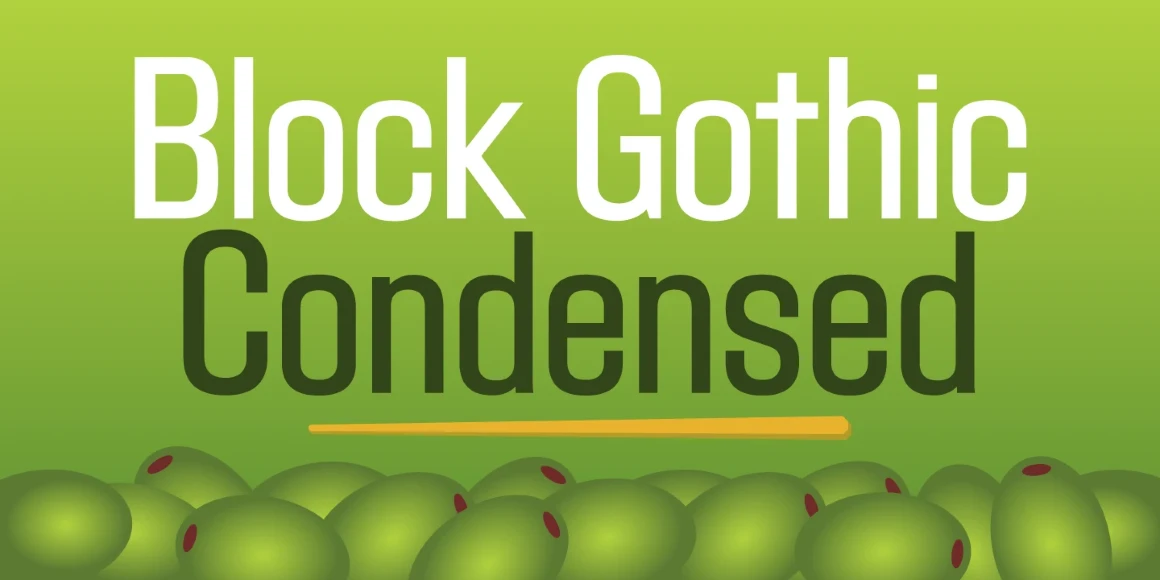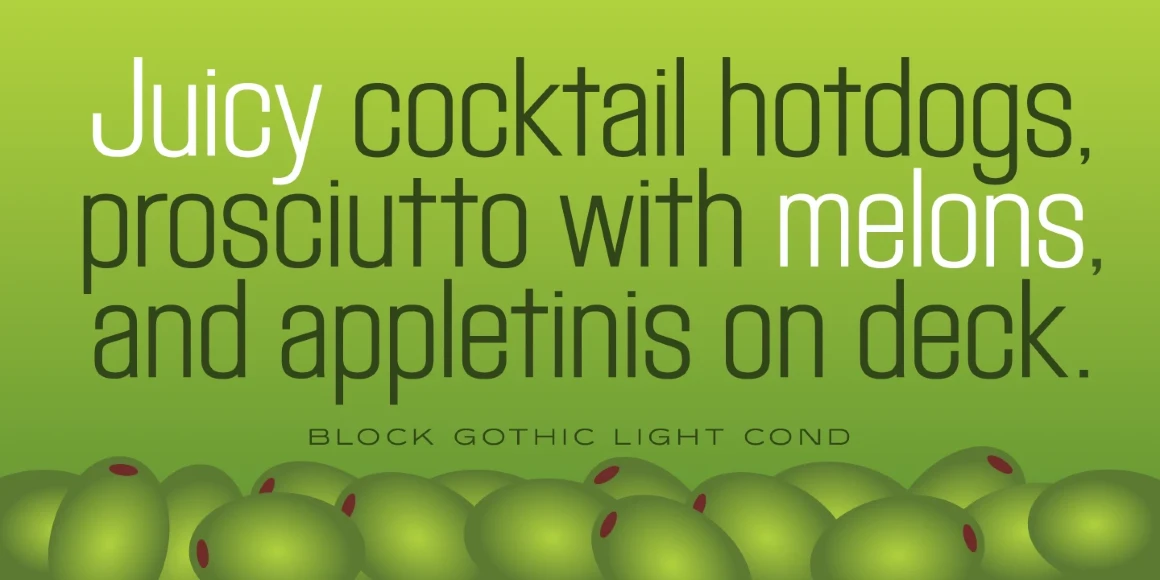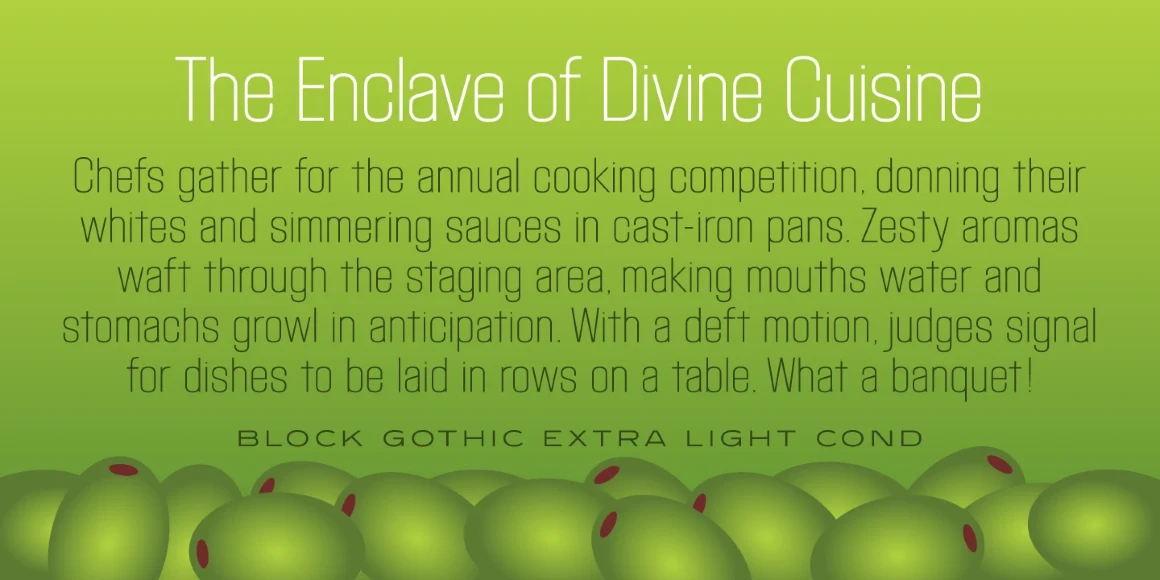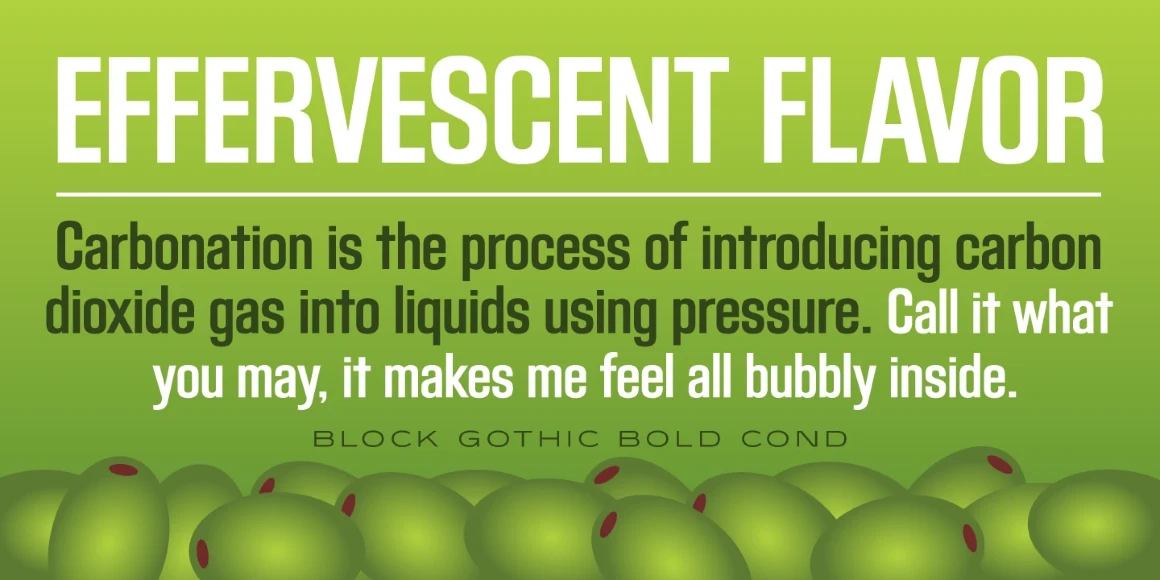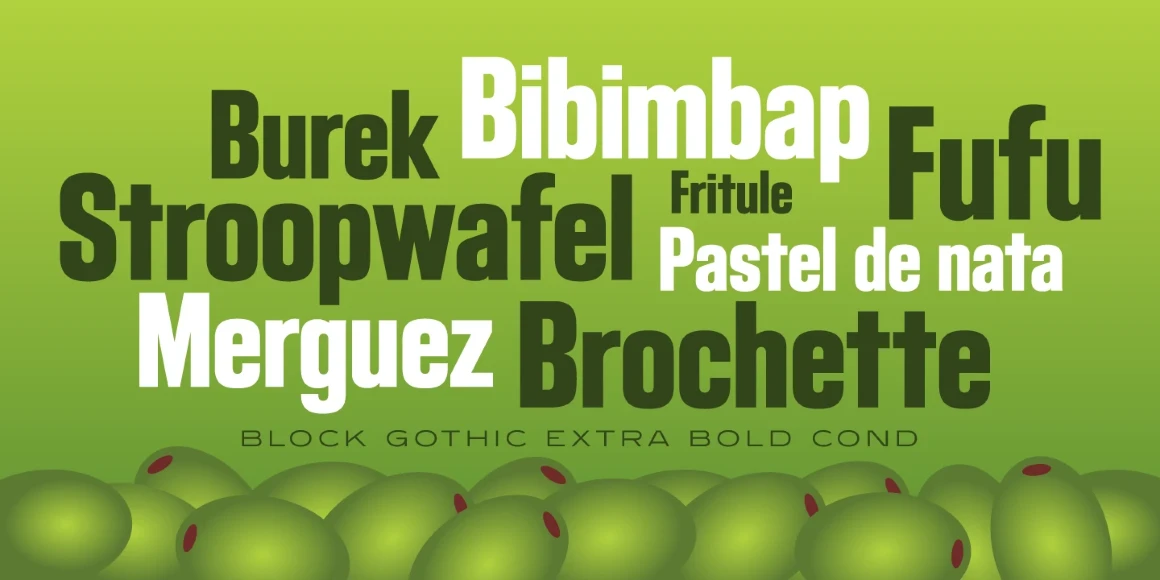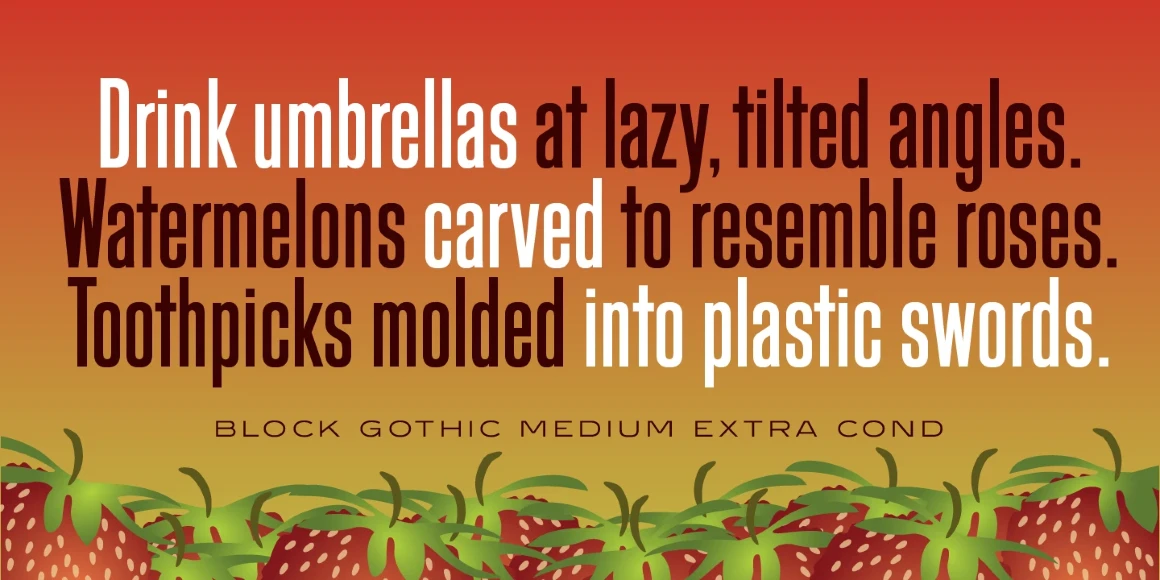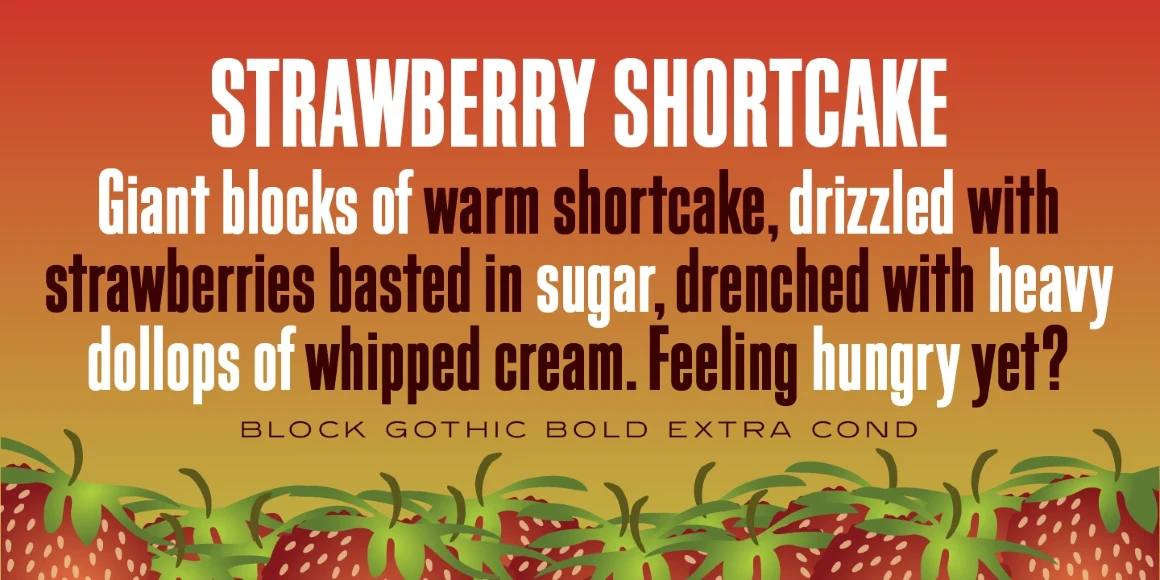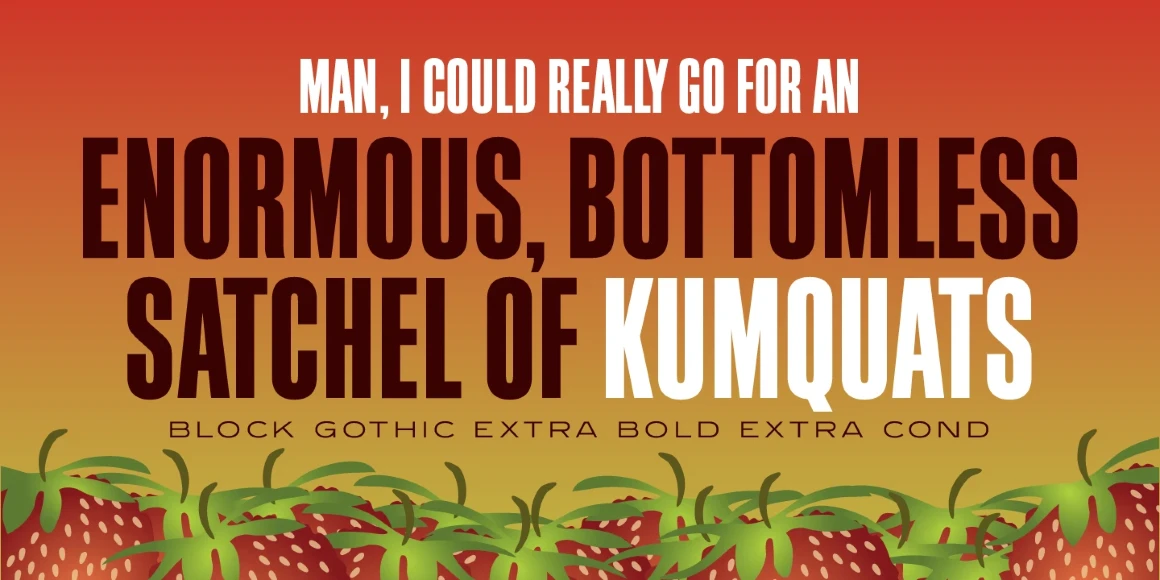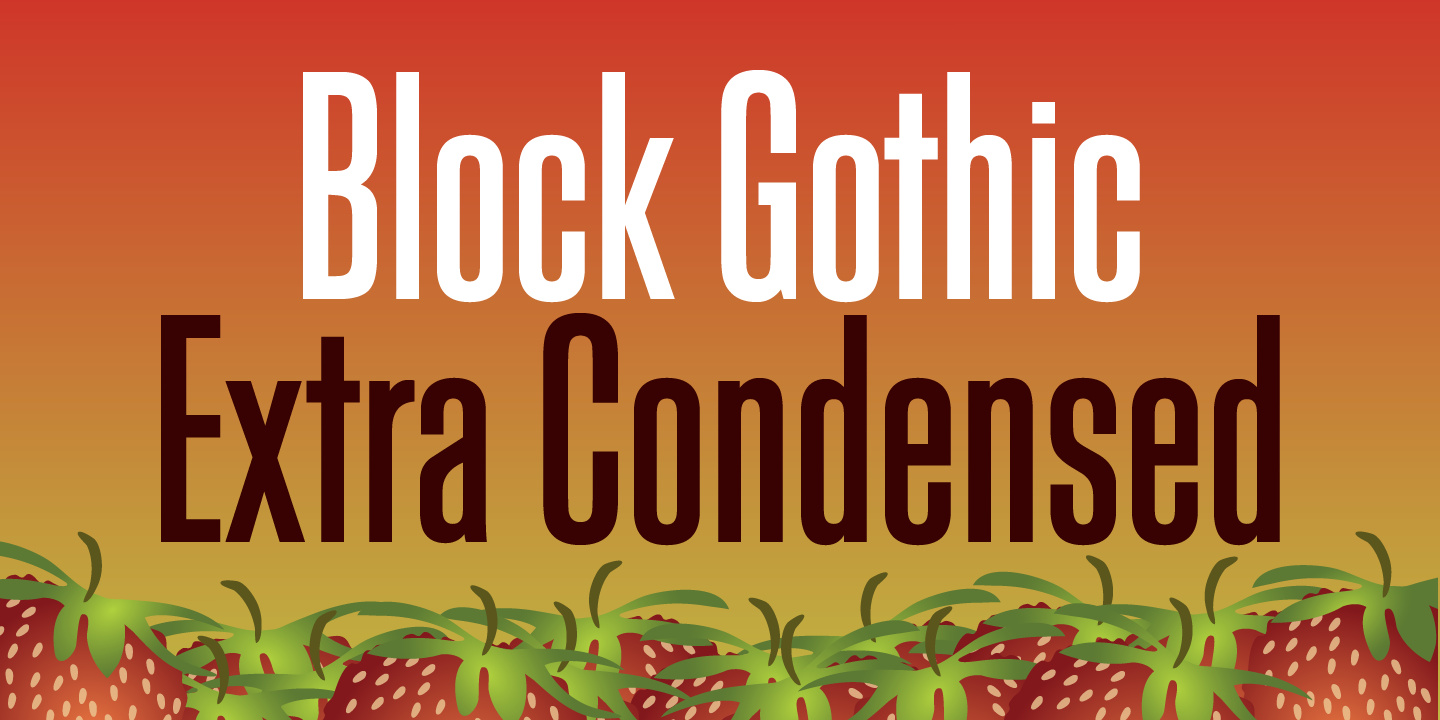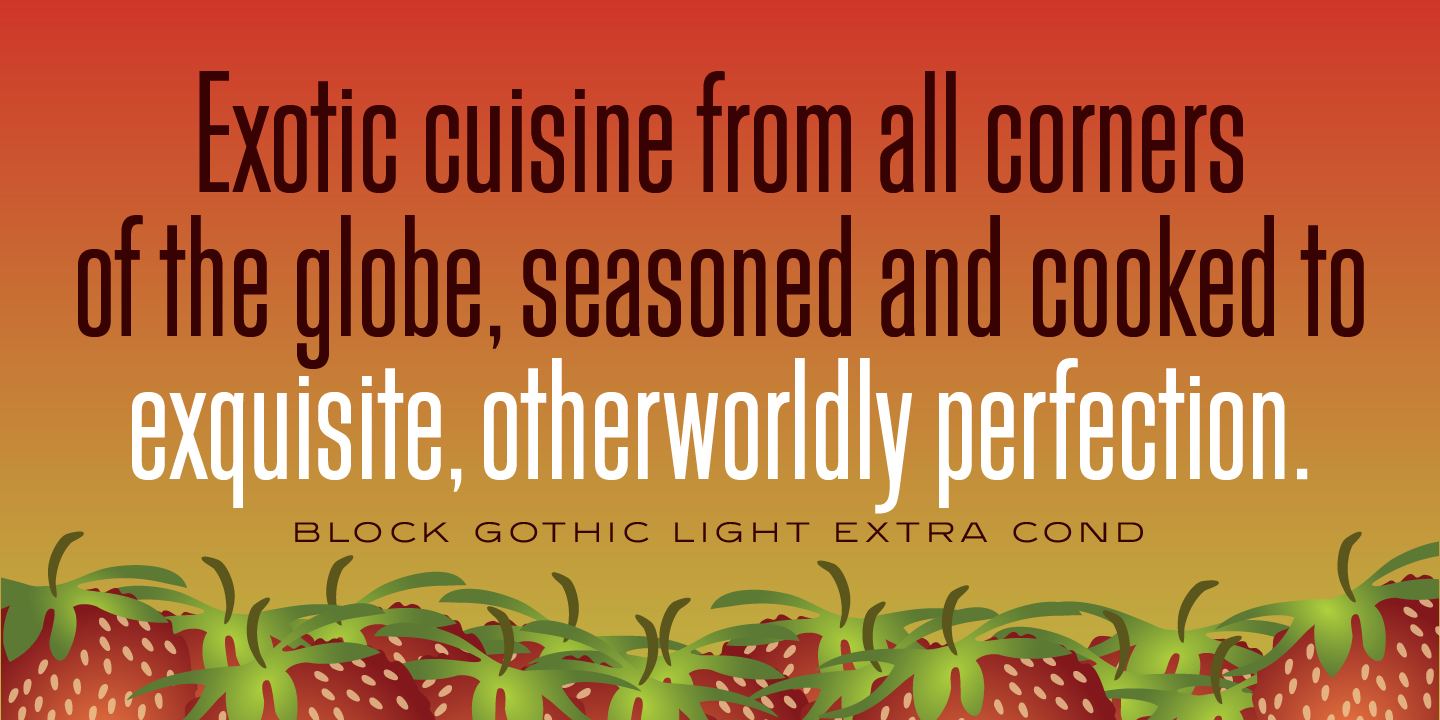
Block Gothic
Block Gothic Extra Condensed is a sans serif font family exclusively licensed from the Techni-Process (TP) Collection. Steve Jackaman (ITF) redrew and produced the family in 1994. Block Gothic Extra Condensed has a fashionable modern feel, and is quite sturdy in its heavier weights. The family clean and legible in all sizes, and adds a unique beauty to projects. Its sister family, Block Gothic Condensed, is a great alternative for those seeking an uncompressed version of the family.